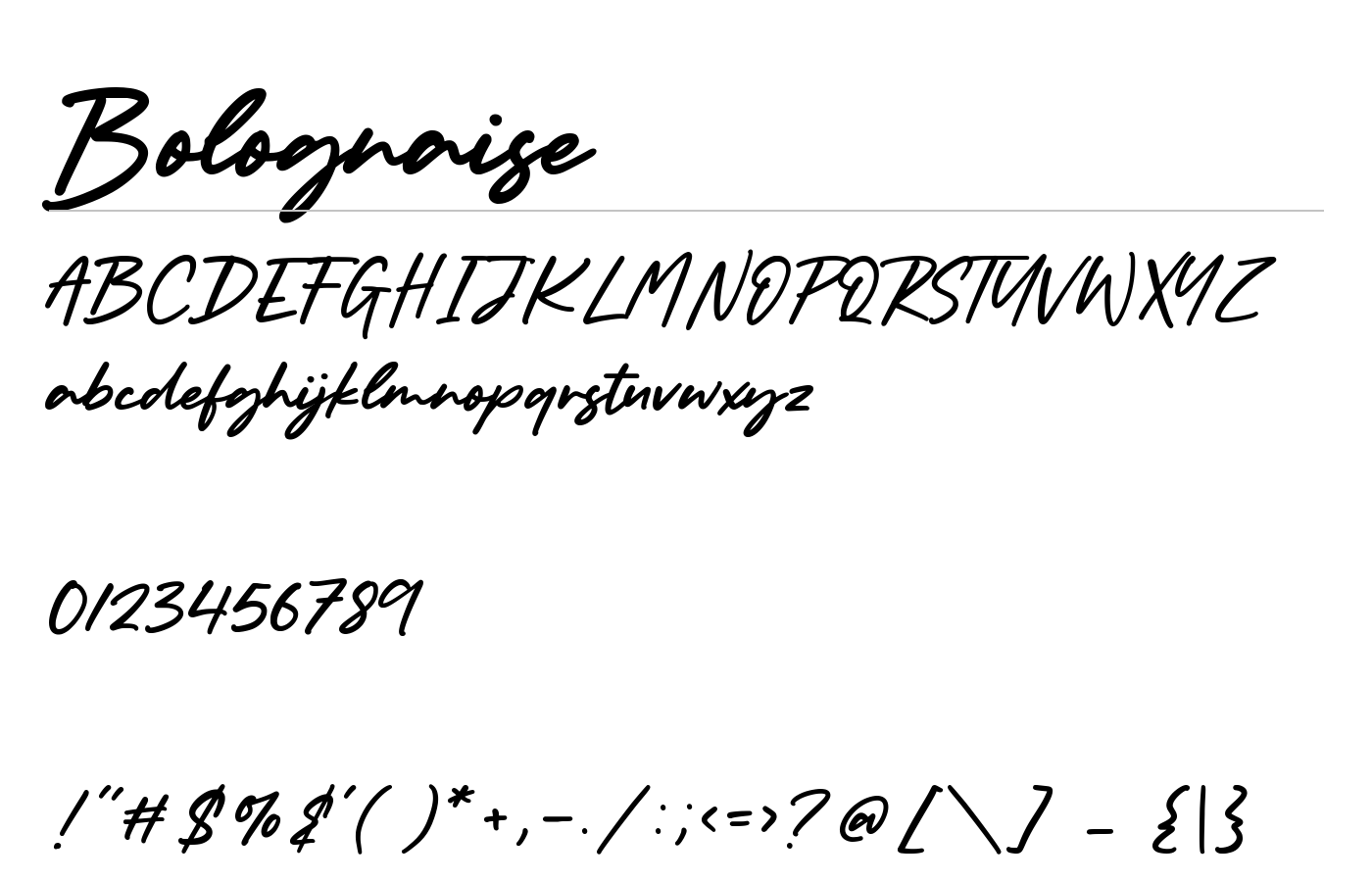
Bolognaise is a lively script font that mimics natural handwriting with its smooth, flowing strokes and casual flair. It features a medium weight with a slightly condensed width and medium contrast, creating an approachable yet elegant feel that suits informal branding, invitations, and creative headlines. This font works well where a personal, friendly touch is needed, adding warmth and personality without sacrificing readability.
Bolognaise Font